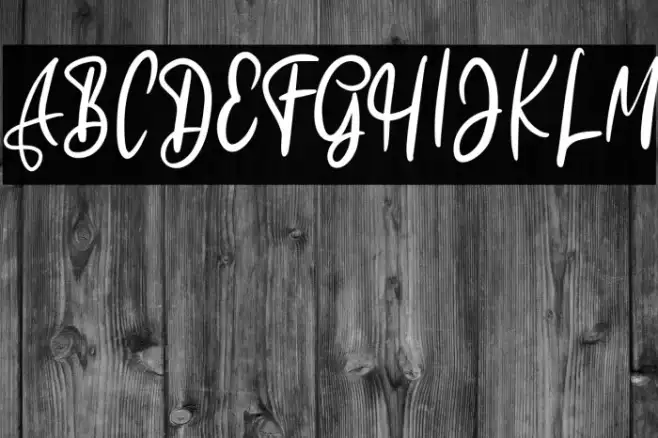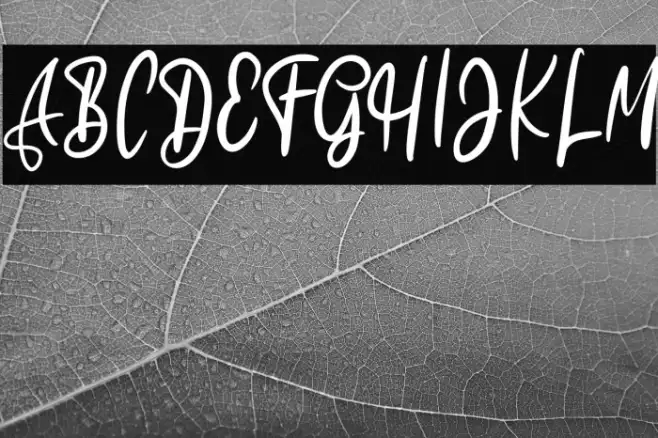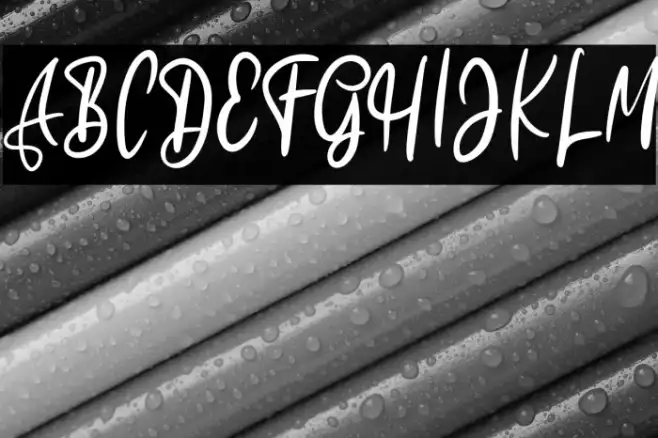
ElliesFREE Font
This font features a lively and energetic script style, characterized by its flowing, cursive letterforms. The uppercase letters are bold and dynamic, with a playful yet elegant flair, while the lowercase letters maintain a consistent rhythm and smooth connections. The strokes are moderately thick, providing a sense of boldness and clarity. The font's design incorporates a slight slant, enhancing its handwritten appearance. It is well-suited for creative and expressive projects, offering a personal touch that is both stylish and approachable.
A lively and energetic script font with bold, flowing cursive letterforms.
- Font: ElliesFREE
- Proposed Projects: Ideal for wedding invitations, greeting cards, branding, and social media graphics.
- Category: Script
- Use Case: Logos, Headlines, Invitations